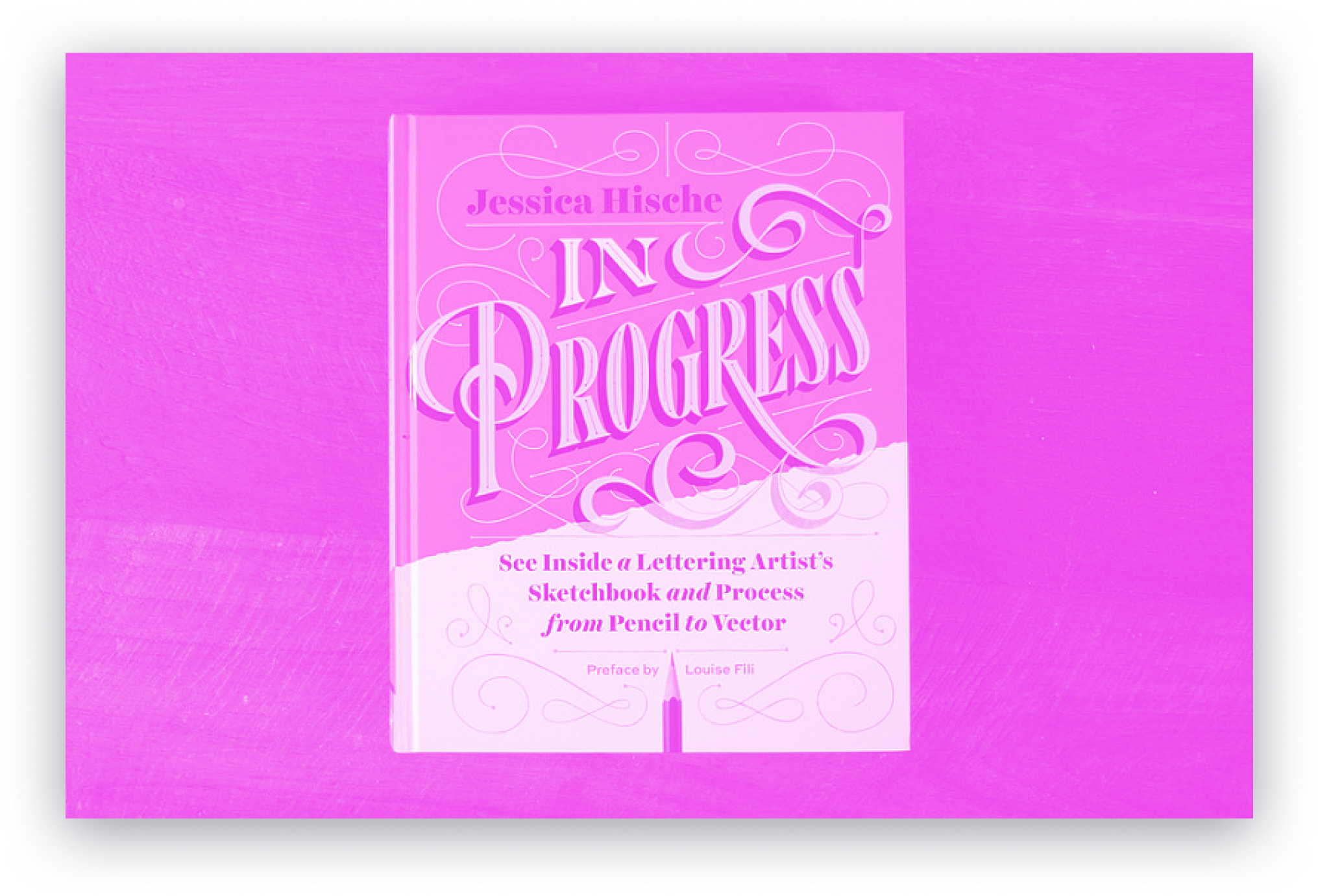
Work in Progress. ๐ง
๐ก Type in Progress ๐ก
FUTURE FONTS. Future Fonts is a collection of brand new typefaces that talented designers are currently working on, and will be continuing to update. The platform encourages designers to release workable versions of their typeface throughout the process, similar to how software versions are released. This makes new styles available sooner and helps fund a long, and therefore expensive, creative process.
Since these typefaces are beyond fresh, they havenโt been overused yet in advertising campaigns or existing design work. They are all making their initial debut in to the design scene with Future Fonts. It also works as a testing ground for type designers to experiment with the market. Typefaces aren't necessarily finished, so you buy the typeface at the stage it is at.
๐ Face of the Week ๐
OLI GROTESK. The Oli Grotesk typeface family is an ambitious super-family that encompasses all major Indian scriptsโ Latin, Devanagari, Tamil, Gujarati (for the time-being) under one visual language. Perfect for diverse usage especially in marketing, for screen and print to achieve a consistent look and typography. Designed by Shiva Nallaperumal and Aarya Purohit and soon-to-be released via Typotheque.
โ๏ธ Pencil to Vector ๐
IN PROGRESS. This show-all romp through design-world darling Jessica Hische's sketchbook reveals the creative and technical process behind making award-winning hand lettering. See everything, from Hische's rough sketches to her polished finals for major clients such as Wes Anderson, NPR, and Starbucks. The result is a well of inspiration and brass tacks information for designers who want to sketch distinctive letterforms and hone their skills. With more than 250 images and metallic silver ink printed throughout to represent her penciled sketches, this highly visual book is an essentialโand entirely enjoyableโresource for those who practice or simply appreciate the art of hand lettering.
Jessica's remarkable story is condensed into this great resource (that I gifted myself the birthday it was released) covering every aspect of her trade as a lettering artist. So. worth. it.